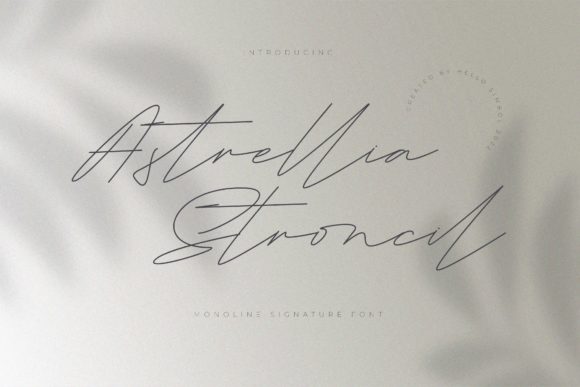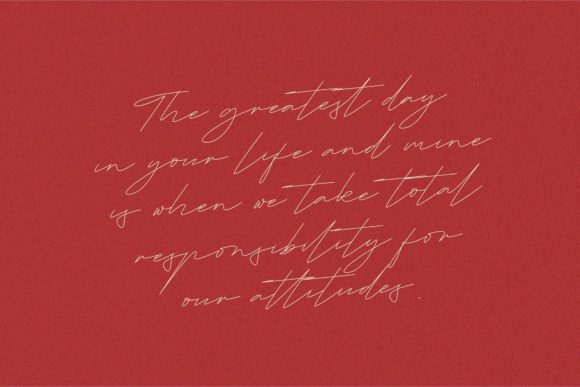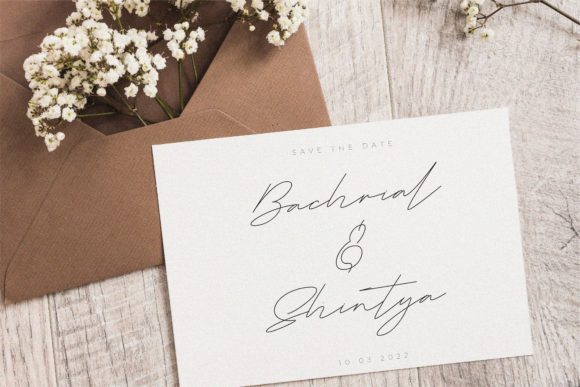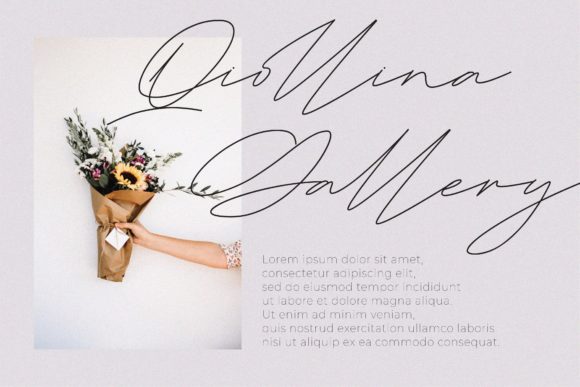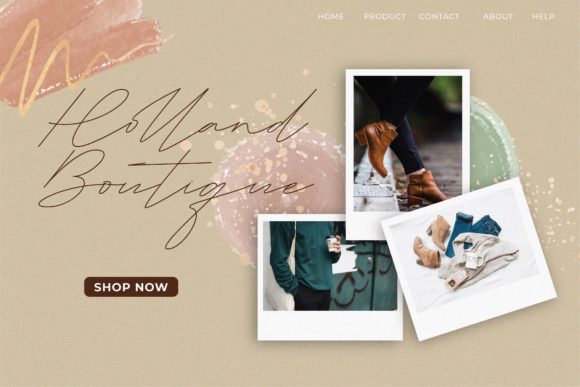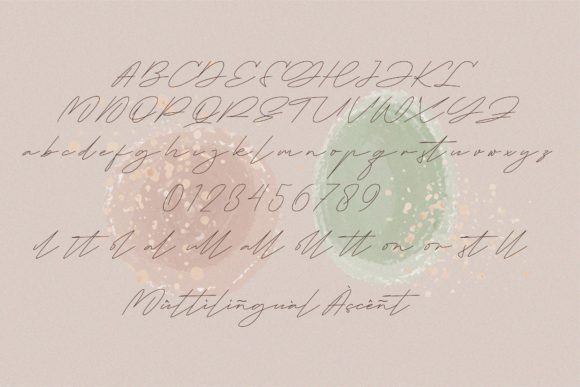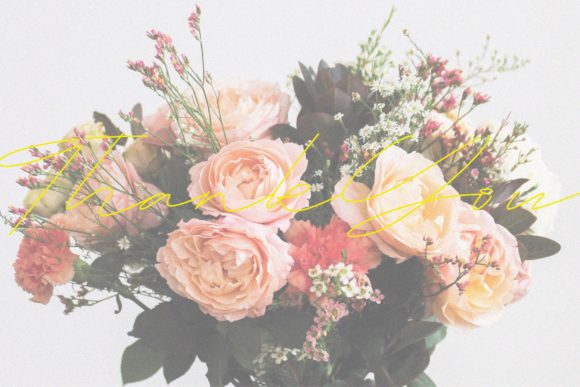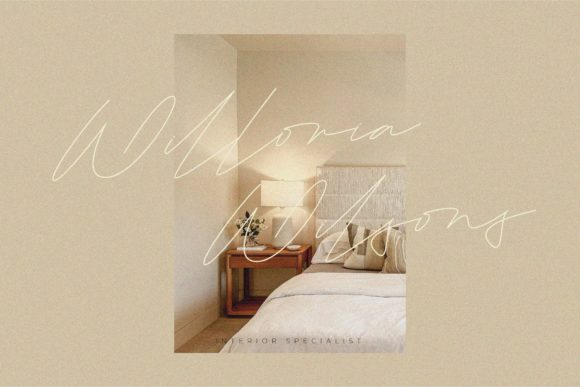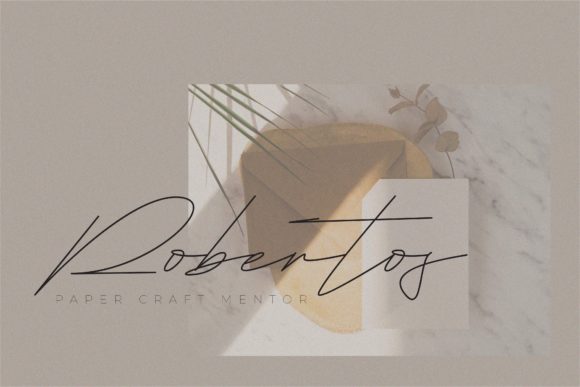
Astrellia Stroncil Font
About Astrellia Stroncil Font
“Astrellia Stroncil” is an exquisite script font characterized by its incredibly thin letterforms and captivating beauty. Its delicate and balanced character makes it a versatile choice that can seamlessly integrate into a wide variety of design projects.
The font’s thin lettering adds an element of elegance and sophistication to your designs. Its graceful strokes and intricate details create a visually appealing texture that captures attention and conveys a sense of refinement.
The “Astrellia Stroncil” font’s versatility shines through its ability to fit well within a large design pool. Its balanced character ensures compatibility with a diverse range of contexts, making it suitable for various applications such as branding, invitations, packaging, flyers, and more.
Whether used in branding materials to evoke a sense of elegance, on invitation cards to add a touch of beauty, or in event posters to create a striking visual impact, “Astrellia Stroncil” offers a unique aesthetic that can enhance your projects with its delicate charm.
In summary, “Astrellia Stroncil” is a font that marries thin, beautiful letterforms with a balanced character. Its versatility allows it to seamlessly blend into various design contexts, making it a wonderful choice for designers looking to infuse their projects with a touch of sophistication and allure.